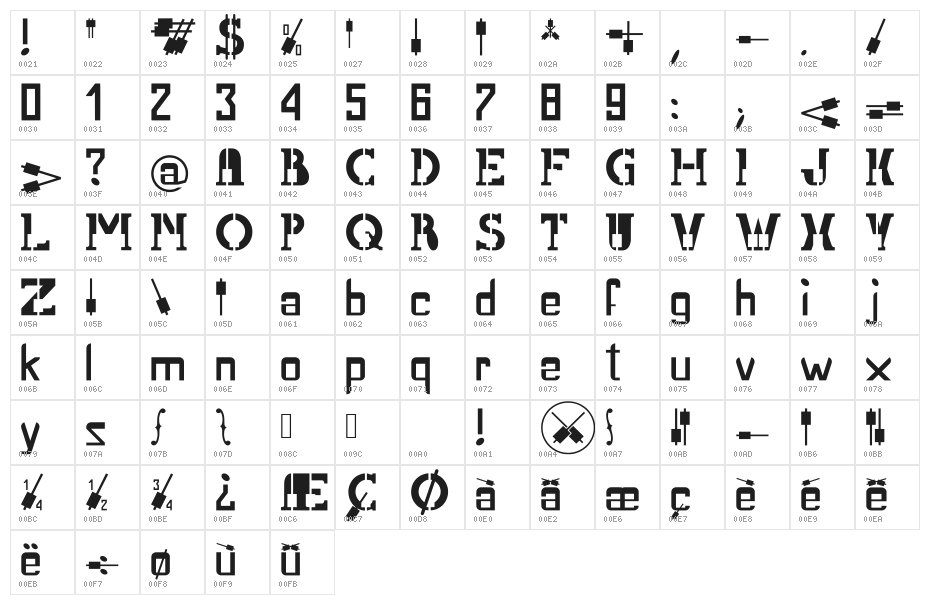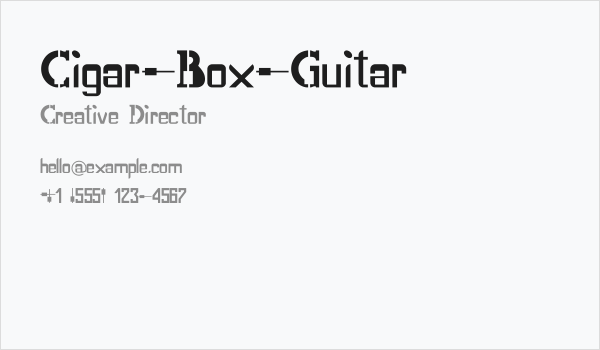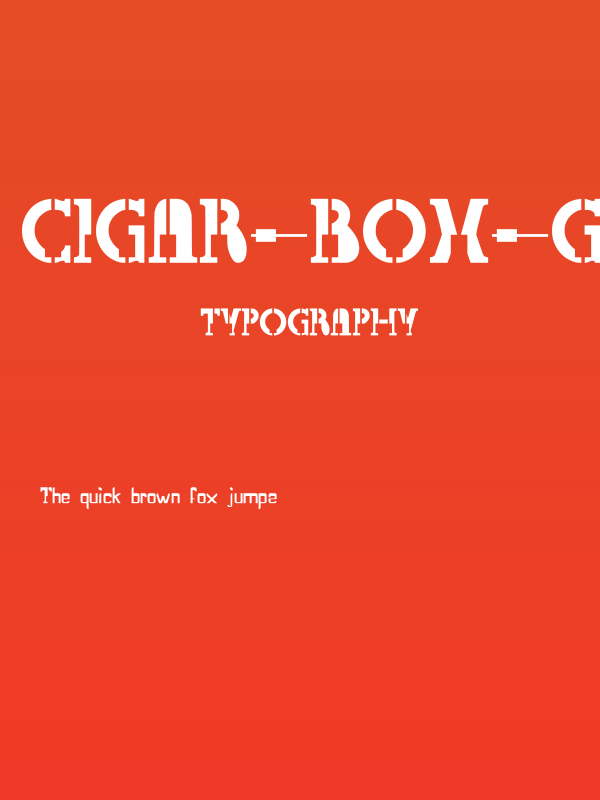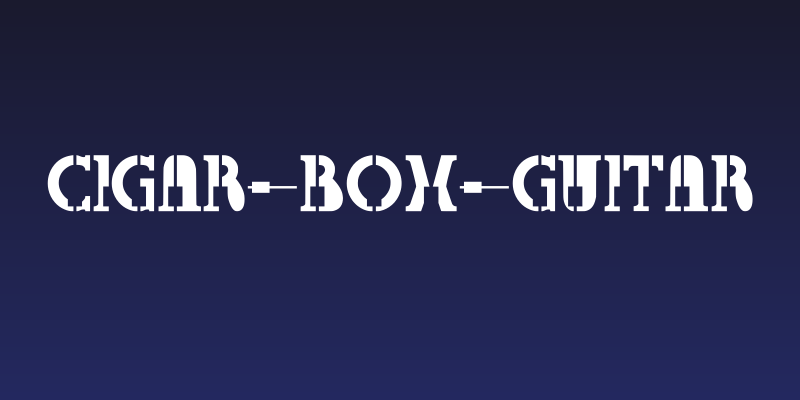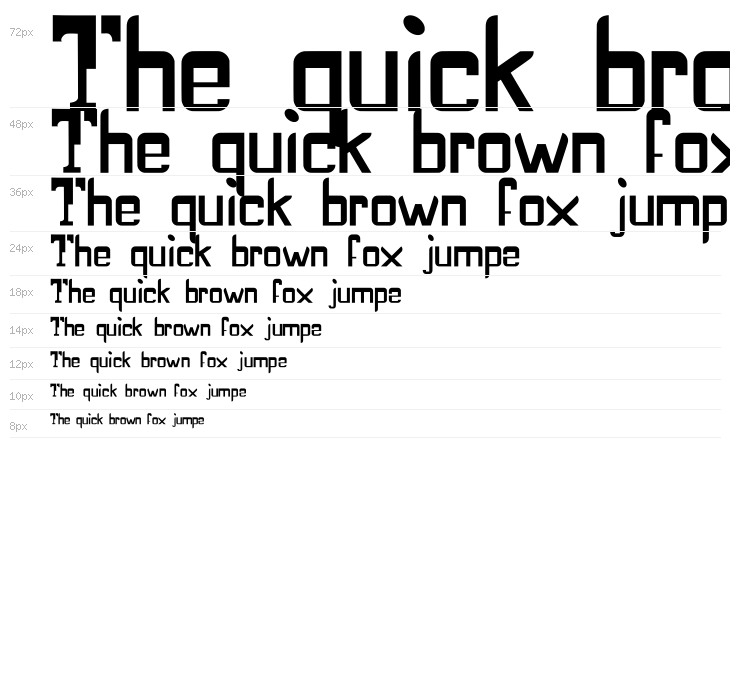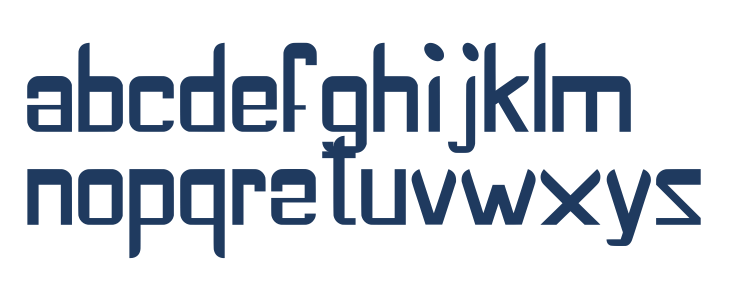
Cigar-Box-Guitar Font
Cigar-Box-Guitar Description
This font features a bold and striking design with a unique, stencil-like appearance. The uppercase letters have a distinct cut-out style, giving them a rugged and industrial feel. The lowercase letters are more streamlined, maintaining a consistent thickness throughout. The numbers are bold and geometric, complementing the overall style. Special characters are creatively designed, adding to the font's decorative appeal. This font is ideal for projects that require a strong visual impact and a modern, edgy aesthetic.
| Overall Style | Modern, Industrial |
| Proposed Projects | Ideal for posters, album covers, branding, and any project needing a strong, industrial look. |